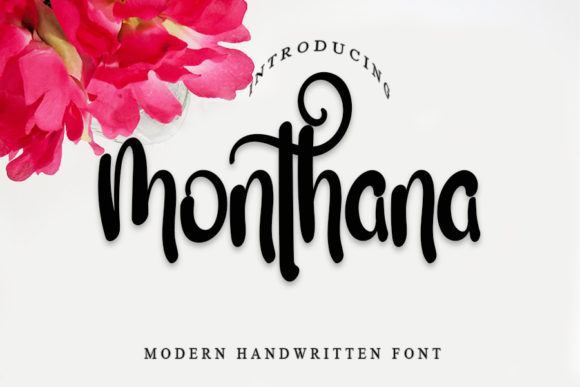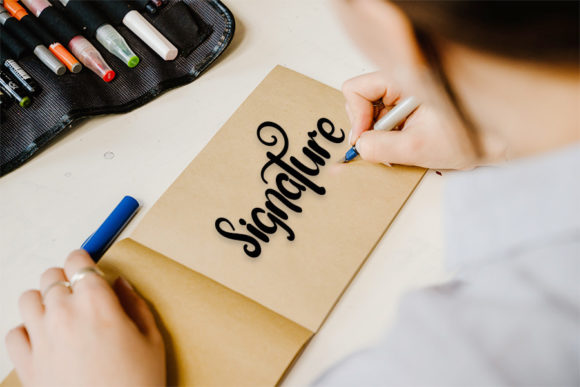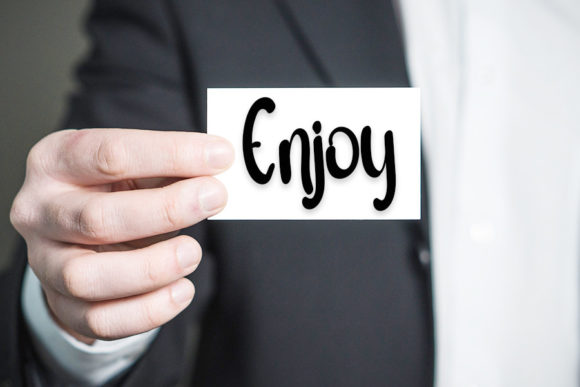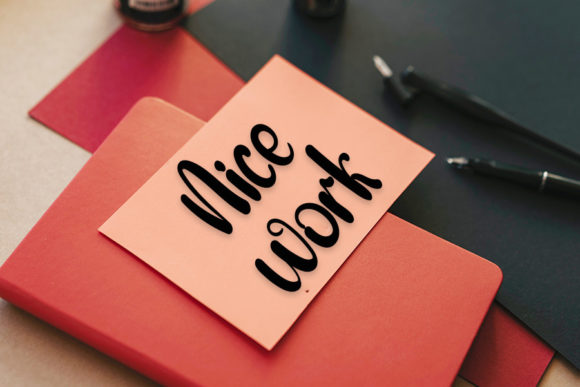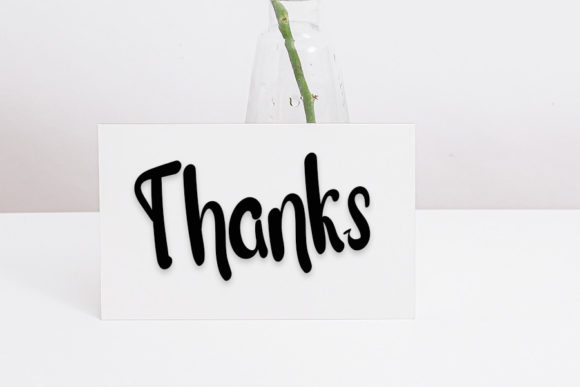
Monthana Font
About Monthana Font
Introducing “Monthana,” a friendly handwritten font crafted to become a true favorite among designers and creatives alike. With its classy calligraphic influences and contemporary freshness, Monthana maintains a balance of elegance and modernity, making it a versatile choice for a wide range of design projects.
Whether you’re creating branding materials, invitations, posters, packaging, or social media graphics, Monthana exudes warmth and personality, adding a friendly touch to your designs. Its carefully designed characters and flowing strokes ensure that your projects stand out with a sense of charm and sophistication.
With PUA encoding, accessing the wide array of glyphs and ligatures is effortless, allowing you to customize your designs with ease. Whether you’re adding decorative elements or unique letter combinations, Monthana offers endless possibilities for creative expression.
Experience the beauty and versatility of Monthana and watch as it transforms your designs into captivating works of art. Whether you’re a professional designer or a passionate enthusiast, this font invites you to explore new avenues of creativity and express yourself with confidence and style.
Unlock the full potential of your designs with Monthana and let its friendly handwritten font elevate your projects to new heights. With its classy calligraphic influences and contemporary freshness, this font is sure to become a beloved addition to your design toolkit, inspiring creativity and delight with every use.